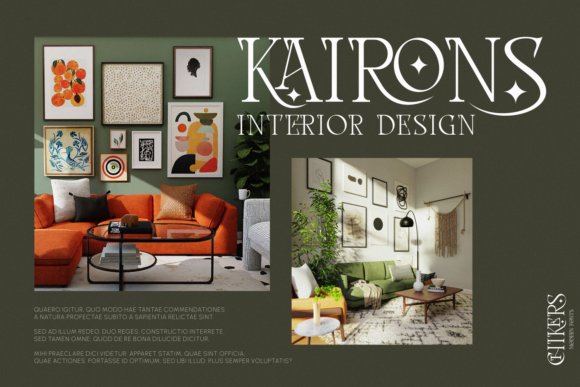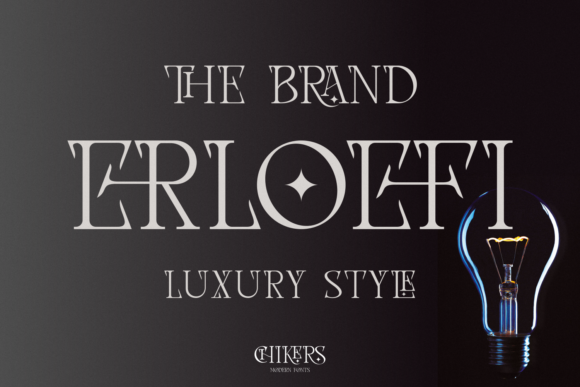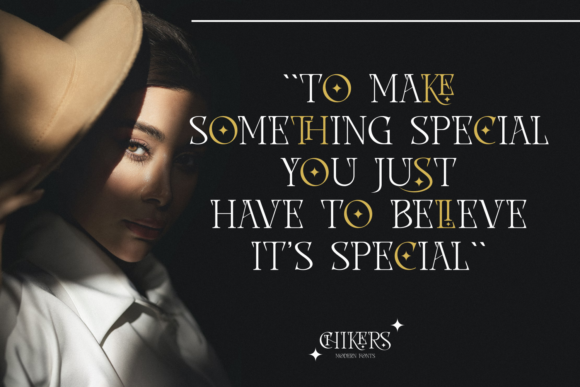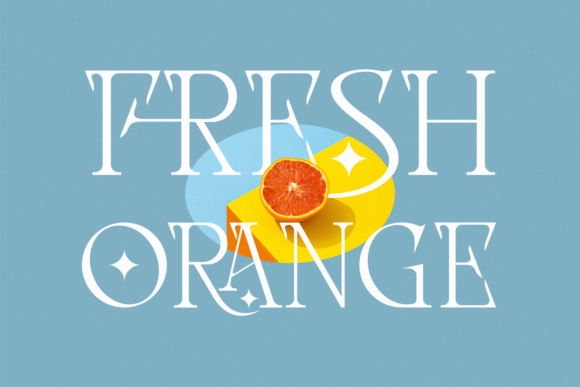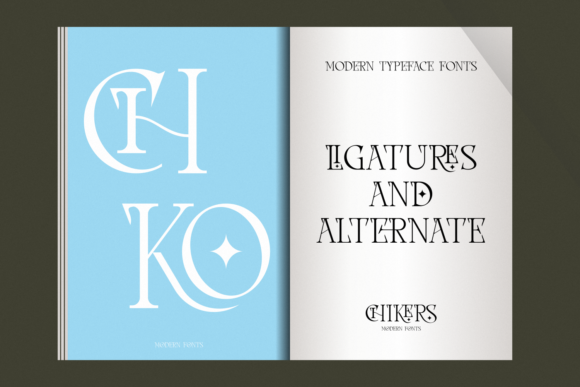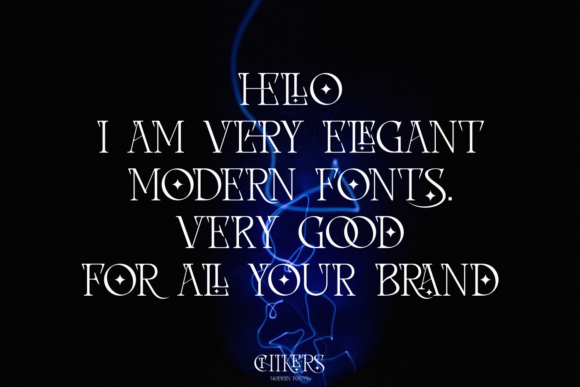
The Designer’s Delight: Exploring the Chikers Font
I’ll never forget the time I was working on a project for a client who wanted a bold, eye-catching font to make their brand stand out. I spent hours scouring through font libraries, but nothing seemed quite right. That was until I stumbled upon the Chikers font. Its distinct, assertive, and stylish serif design immediately caught my attention, and I knew I had found the perfect fit. In this article, I’ll share my experience with the Chikers font, its features, and how to make the most of it in your designs.
- ✨ PUA Encoding: The Chikers font is PUA encoded, making it easy to access all the glyphs and swashes. No more tedious searching for the perfect character!
- ✅ Endless Possibilities: With its wide range of glyphs and swashes, the Chikers font offers endless possibilities for creative expression.
- 💥 Impactful Design: The font’s bold, serif design makes it perfect for headlines, titles, and anywhere you want to make a statement.
While the Chikers font is an excellent choice for many designs, there are a few things to keep in mind:
- 🤔 Legibility at Small Sizes: As with many serif fonts, the Chikers font may become less legible at very small sizes. It’s best used at larger sizes where its bold design can shine.
- ⚠️ Overuse of Swashes: With so many swashes to choose from, it’s easy to get carried away. Be mindful of overusing them, as it can make your design look cluttered.
The Story Behind Chikers Font
The Chikers font was designed with the goal of creating a bold, eye-catching serif font that’s perfect for making a statement. Inspired by classic serif fonts, the Chikers font adds a modern twist with its unique glyphs and swashes. Whether you’re a designer, crafter, or creative hobbyist, the Chikers font is sure to become a favorite in your font library.
Q: What is PUA encoding?
A: PUA (Private Use Area) encoding allows for easy access to glyphs and swashes, making it simple to use the font’s advanced features.
Q: Is the Chikers font suitable for body text?
A: While the Chikers font is bold and eye-catching, it’s best used for headlines and titles. For body text, consider a more legible font.